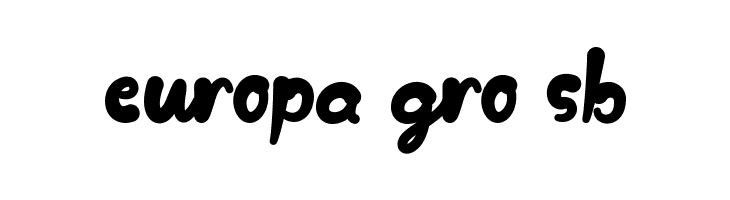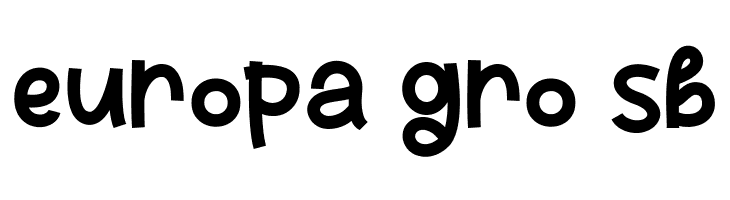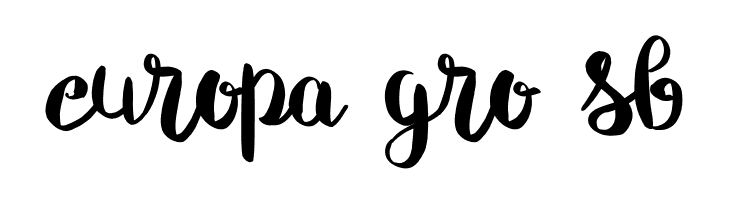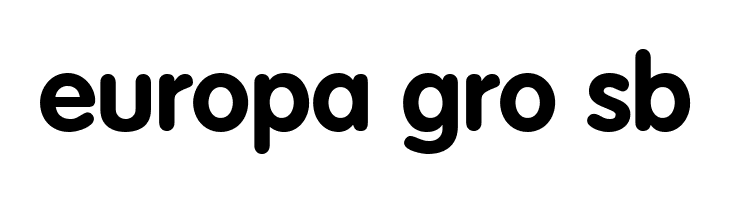
A playful, bold, and rounded font with a hand-drawn feel.
A playful, bold handwritten font with a smooth, flowing style.
A bold, rounded sans-serif font with a modern and friendly appearance.
A bold, expressive brush script with dynamic strokes and artistic flair.
A bold, 3D neon-style italic font with a retro vibe.
A bold, 3D neon-style font with layered outlines for a striking effect.